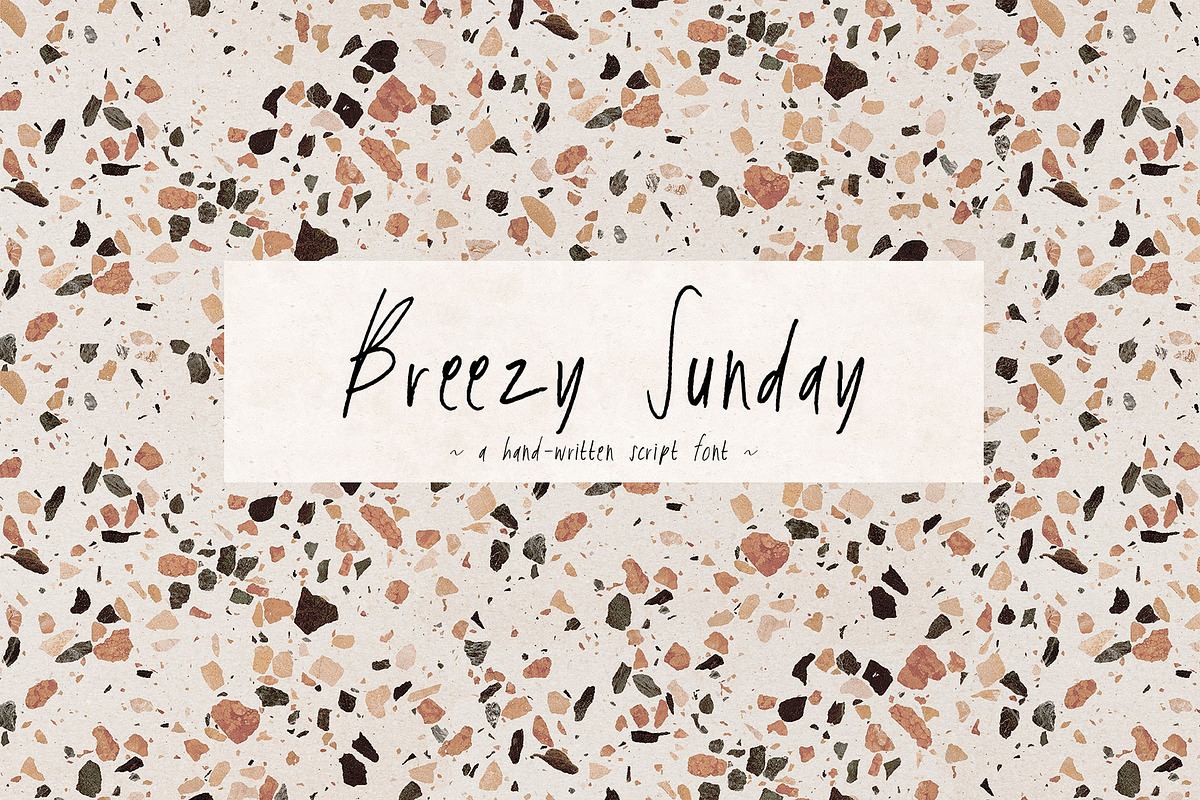
Breezy Sunday Script Font Free Download is a light, flowing, and effortlessly charming script typeface that captures the relaxed vibe of a perfect weekend. With its smooth curves and handwritten elegance, this font is ideal for wedding invitations, lifestyle branding, Instagram quotes, greeting cards, planners, and creative blog headers.
Its casual yet refined letterforms give your text a personal touch while still maintaining a polished and professional look. Whether you're designing for a cozy café, a boutique brand, or heartfelt messages, Breezy Sunday adds warmth and personality to every word.